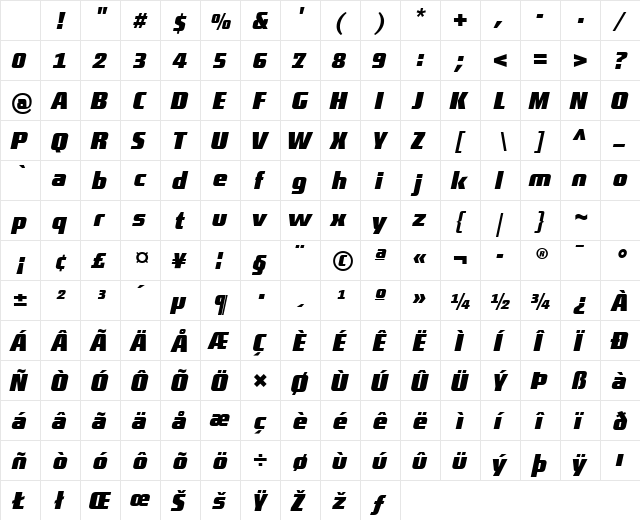
Complete DistrictTF-BoldItalicAlt Regular glyph index. Displaying only characters natively supported by DistrictTF-BoldItalicAlt Regular font.
DistrictTF-BoldItalicAlt is a composed and adaptable typeface that performs quietly and consistently across a wide range of design contexts. The slanted form adds forward momentum and visual energy. Its bold stroke weight gives it real presence on the page.
Pro Tip: Use DistrictTF-BoldItalicAlt for emphasis, pull quotes, and subheadings where its slanted energy can add rhythm to the layout.